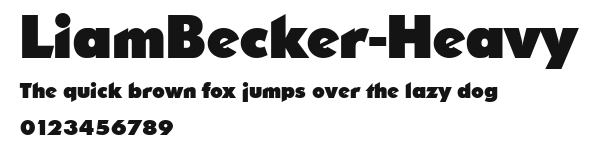
• Font Name: LiamBecker-Heavy
• Full Font Name: LiamBecker-Heavy
• PostScript Name: LiamBecker-Heavy
About LiamBecker-Heavy.ttf
LiamBecker-Heavy.ttf is a modern, elegant sans-serif font designed for ultimate readability and visual harmony. Perfect for branding, headlines, web design, and print materials.